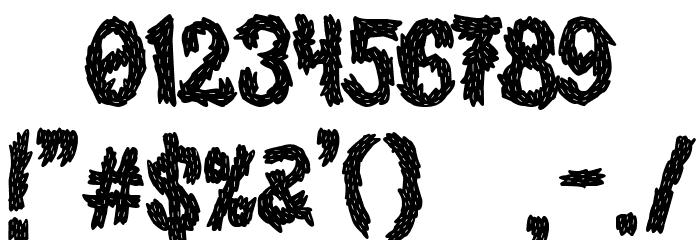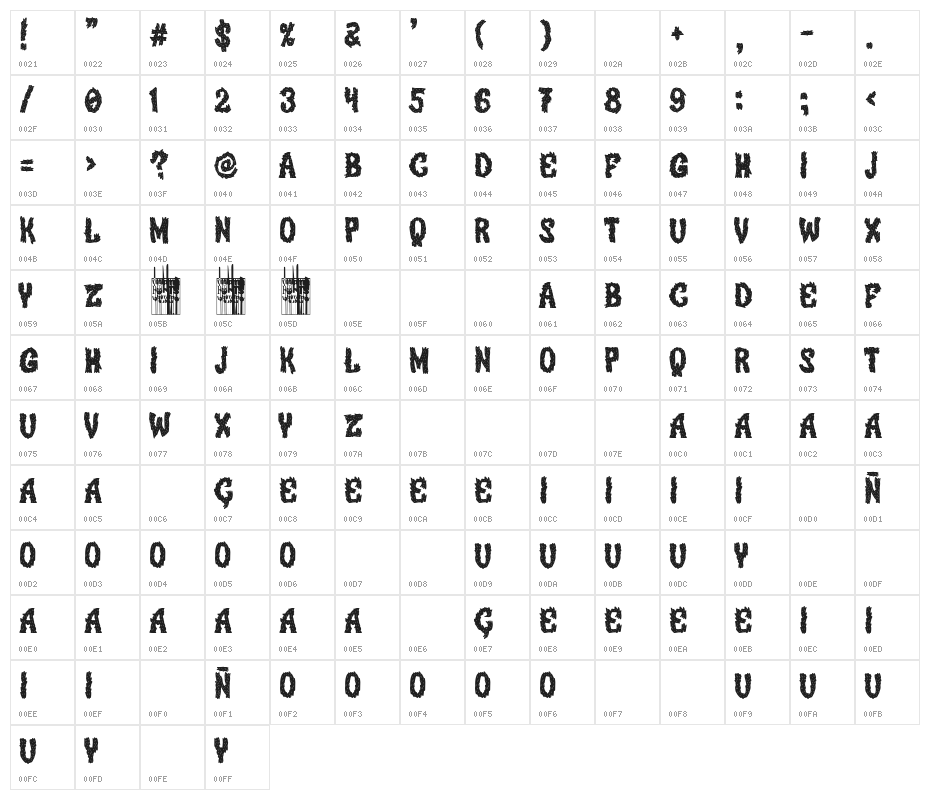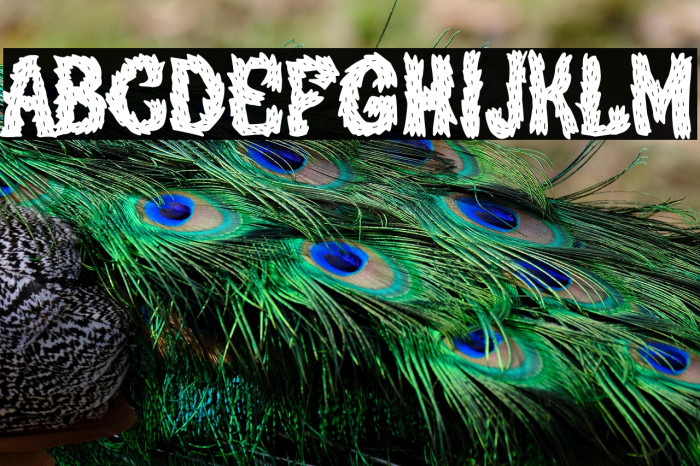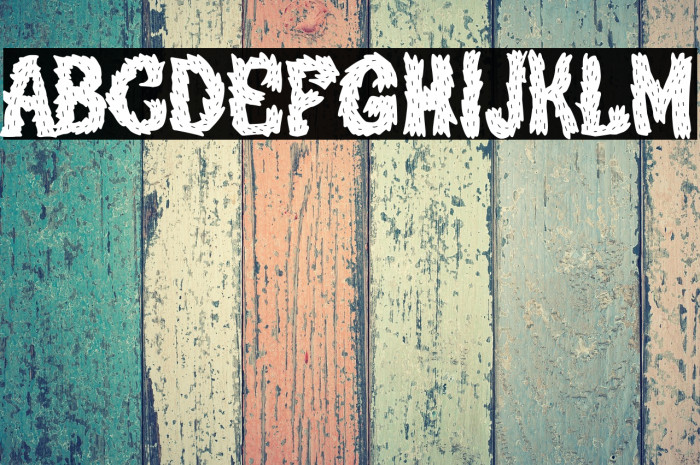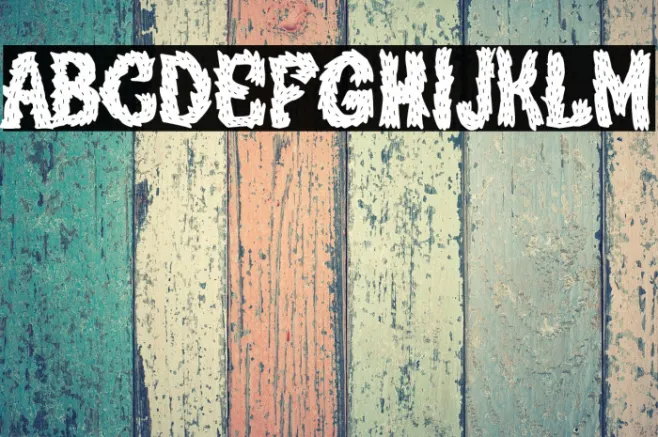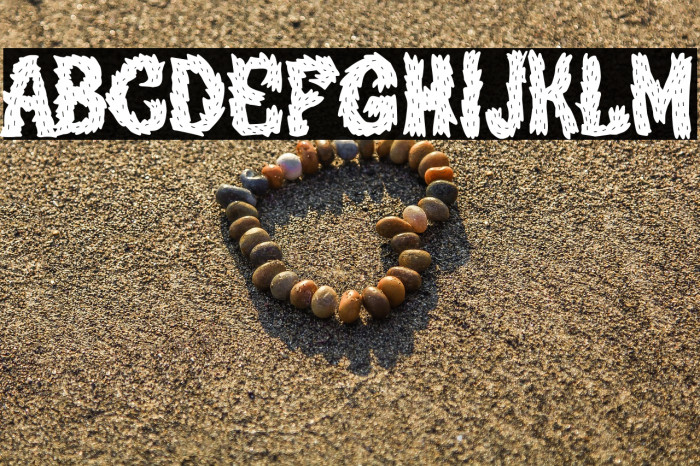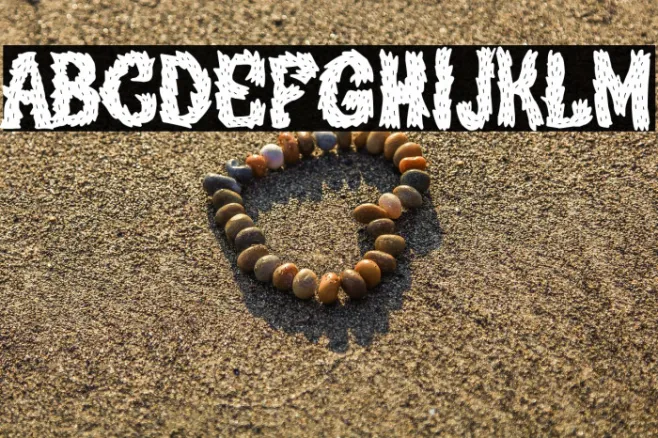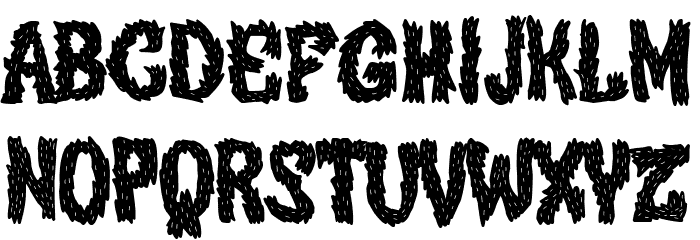
Beard Nation Font
Beard Nation Description
This font features a bold, textured design that mimics the appearance of thick, hand-drawn strokes. Each character is filled with a dense pattern that gives a rugged, organic feel. The uppercase and lowercase letters maintain a consistent style, with a playful yet robust appearance. Numbers and special characters are equally bold, ensuring a cohesive look across all text elements. The font's unique texture makes it stand out, adding a dynamic and creative flair to any design project.